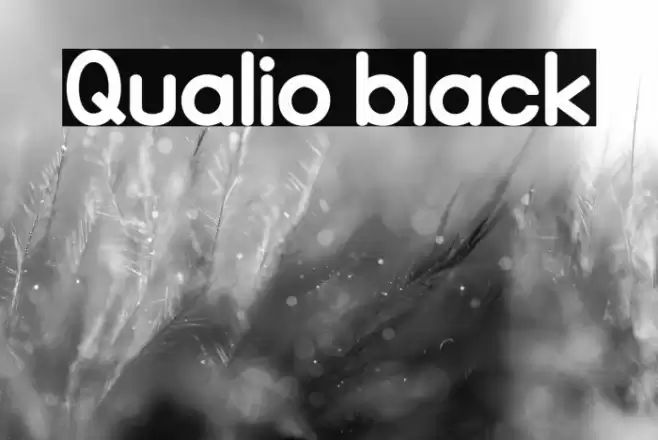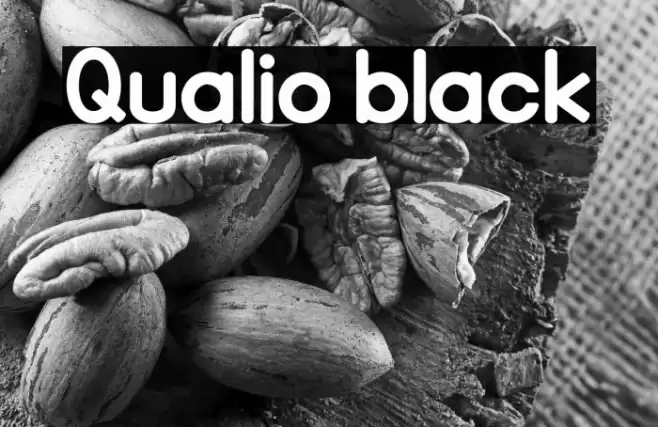
Qualio black Font
Qualio black Description
This font features a bold and rounded sans-serif style, characterized by its smooth curves and uniform stroke width. The letters are evenly spaced, providing a clean and modern appearance. The uppercase and lowercase letters maintain a consistent design, with rounded edges that give a friendly and approachable feel. The numerals and special characters follow the same design principles, ensuring a cohesive look across all text elements. This font's simplicity and clarity make it highly legible, suitable for various applications where readability is key.
A bold, rounded sans-serif font with smooth curves and uniform strokes from Regular fonts.
- Proposed Projects: Ideal for branding, signage, packaging, and digital interfaces where a modern and approachable look is desired.
- Use Case: Headlines, Logos, Digital interfaces